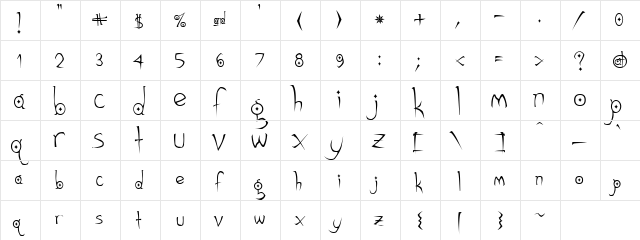
Cardiograph Regular
Design Context for Cardiograph Typeface
Cardiograph is a composed and adaptable typeface that performs quietly and consistently across a wide range of design contexts.